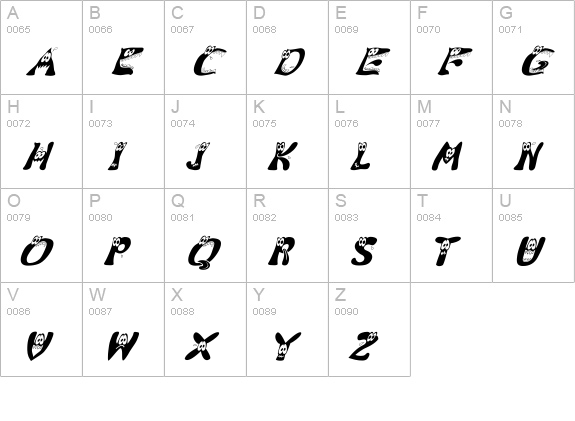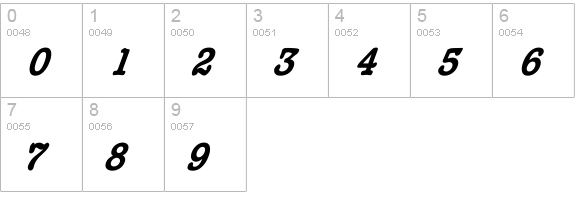
KAMonsterSmirk Font Details
Introducing KAMonsterSmirk font, a playful and mischievous typeface that will add a touch of whimsy to your designs. With its quirky and exaggerated letterforms, this font is perfect for injecting personality into your projects. KAMonsterSmirk is a one-of-a-kind font that exudes a unique charm. Its bold strokes and exaggerated curves give it a distinct and eye-catching appearance. Whether you're designing a poster, a logo, or a greeting card, this font will make a bold statement. But what makes KAMonsterSmirk font even more appealing is that it is free! That's right, you can freely download this font at FontsMarket.com and start using it in your designs right away. Say goodbye to expensive font licenses and hello to creative freedom. Not only is KAMonsterSmirk font free, but it also offers a wide range of glyphs and characters, ensuring that you have all the tools you need to bring your ideas to life. From uppercase and lowercase letters to numerals and punctuation marks, this font has it all. Whether you're designing for a children's book, a playful brand, or simply want to add a touch of lightheartedness to your designs, KAMonsterSmirk font is the perfect choice. Its unique and whimsical style will instantly captivate your audience and leave a lasting impression. So why wait? Go ahead and download KAMonsterSmirk font for free at FontsMarket.com and let your creativity run wild. With this font in your design arsenal, the possibilities are endless. Unleash your imagination and create designs that will make everyone smile.